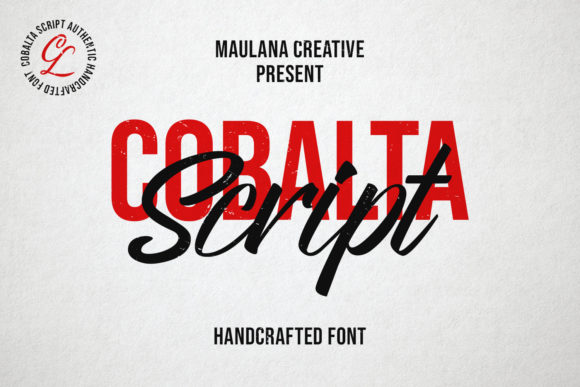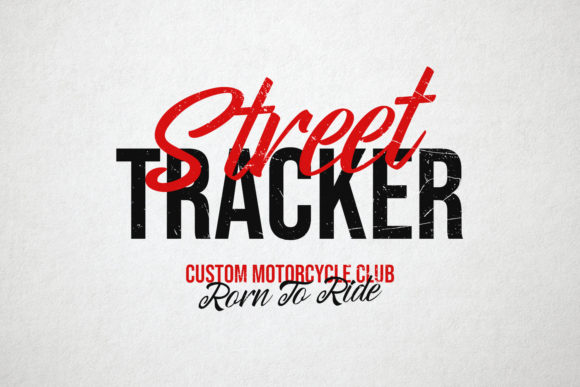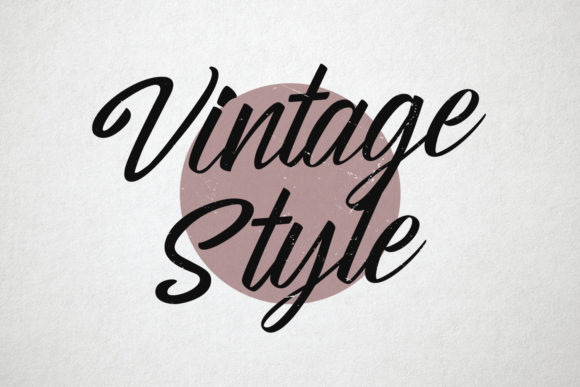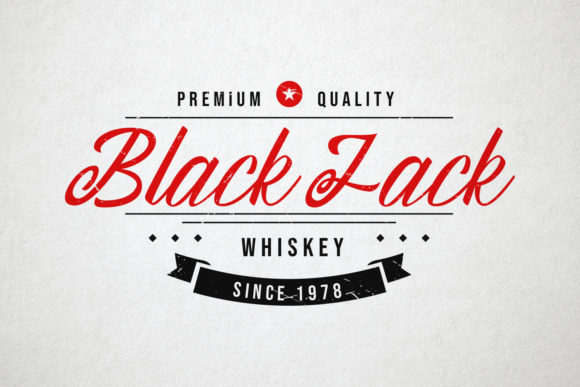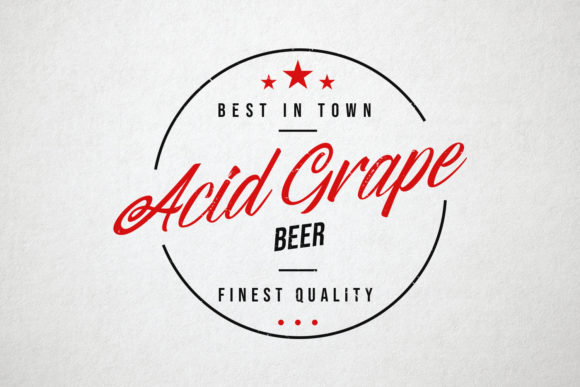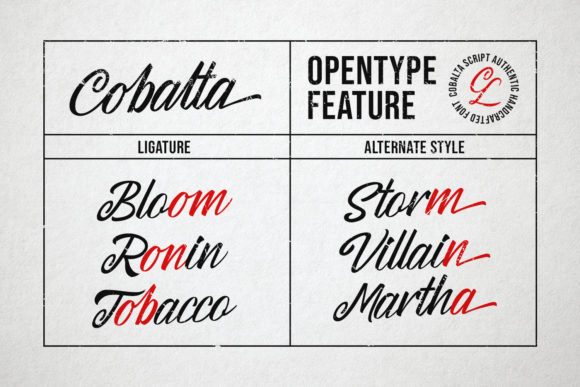
Cobalta Font: Elevate Your Designs with a Touch of Vintage Flair
In the world of typography, fonts play a crucial role in conveying the tone and aesthetic of a design. For crafters, designers, and artists, finding the perfect font can be a game-changer. If you’re looking for a script font that exudes elegance, sophistication, and a hint of nostalgia, look no further than Cobalta Font. In this article, we’ll explore the unique features of Cobalta, its uses, and why it’s an excellent addition to your design toolkit.
The Charm of Cobalta Font
Cobalta is an unforgettable script font that boasts beautiful, detailed characters and an authentic handcrafted feel. Its unique blend of classic and vintage elements makes it perfect for designers seeking to add a touch of nostalgia to their work. With Cobalta, you can create stunning designs that evoke a sense of luxury, sophistication, and refinement.
Key Features of Cobalta Font
- Handcrafted feel: Cobalta’s authentic, handcrafted look sets it apart from other script fonts. Its characters are meticulously designed to resemble handwriting, giving your designs a personal touch.
- Beautifully detailed characters: Each character in Cobalta is carefully crafted with intricate details, making it perfect for designs that require a high level of sophistication.
- Vintage flair: Cobalta’s classic design elements evoke a sense of nostalgia, making it ideal for projects that require a touch of vintage charm.
- Versatility: Cobalta is suitable for a wide range of design applications, from branding and advertising to packaging and stationery.
Cobalta Font is an excellent choice for designers and crafters who want to create unique and eye-catching designs. Whether you’re working on a logo, brochure, or social media graphics, Cobalta’s elegant and refined aesthetic will elevate your work to the next level. Its versatility also makes it suitable for various design applications, including:
- Branding and identity: Use Cobalta to create stunning logos, business cards, and letterheads that reflect your brand’s personality.
- Advertising and marketing: Cobalta’s vintage flair makes it perfect for ad campaigns, flyers, and brochures that require a touch of nostalgia.
- Packaging and product design: Add a touch of elegance to your product packaging with Cobalta’s beautifully detailed characters.
- Stationery and paper crafts: Use Cobalta to create gorgeous stationery, invitations, and paper crafts that showcase your creativity.
Tips for Using Cobalta Font
To get the most out of Cobalta Font, here are some tips to keep in mind:
- Pair with contrasting fonts: Combine Cobalta with sans-serif fonts to create a striking contrast and add visual interest to your designs.
- Experiment with colors: Cobalta’s vintage flair looks stunning with rich, bold colors. Experiment with different color schemes to find the perfect combination for your design.
- Pay attention to spacing: Cobalta’s handcrafted feel can be lost if the spacing is too tight. Make sure to leave enough space between characters to maintain its authentic look.
Cobalta Font is a stunning script font that offers a unique blend of elegance, sophistication, and vintage charm. Its handcrafted feel, beautifully detailed characters, and versatility make it an excellent addition to any design toolkit. Whether you’re a designer, crafter, or artist, Cobalta is sure to elevate your work and add a touch of nostalgia to your designs. So why wait? Discover the beauty of Cobalta Font and take your designs to the next level.